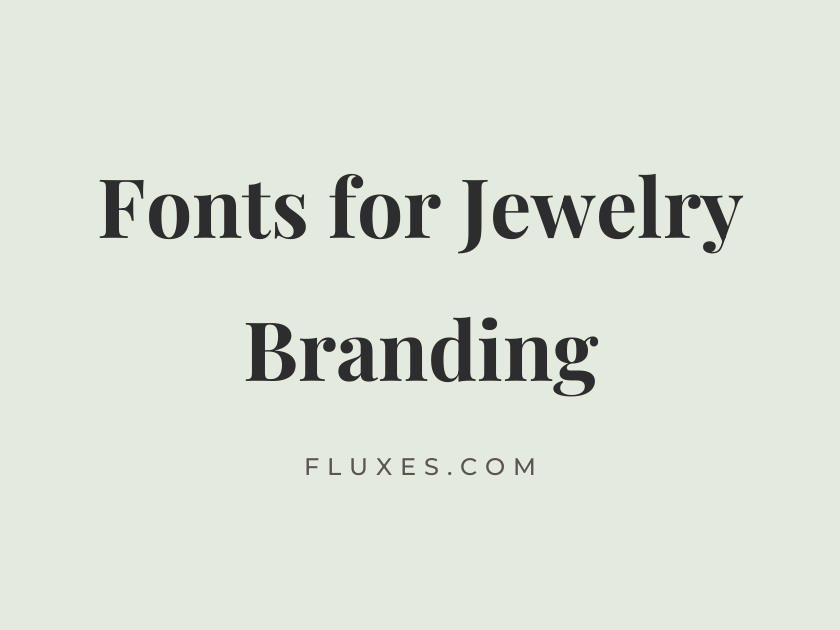
59 Best Fonts for Jewelry Branding
Jewelry branding lives in the details: the weight of a stroke, the space between letters, the way a serif catches light like a facet. Because the product itself is often small, precious, and photographed up close, the typography around it has to carry an outsized share of the storytelling, whether that means the hushed glamour of a hand-forged wedding band or the crisp confidence of a minimalist studio selling stacking rings online. The good news for designers on a budget is that some of the most convincing luxury type available today costs nothing at all.
Every font recommended here is free on Google Fonts, which makes this list a practical starting point whether you are building a logo, a packaging suite, or a full jewelry brand identity from scratch. You will find engraved-looking serifs, art deco display faces, romantic calligraphic scripts, and the kind of pared-back sans-serifs that modern fine jewelry labels favor for their restraint.
1. Playfair Display
Timeless brilliance, cut and set by hand
High contrast between thick and thin strokes gives Playfair Display the glint of a well-cut stone; it photographs beautifully on a hangtag or a storefront sign. It has become something of a default choice for luxury branding generally, so if you want your jewelry mark to stand apart, use it for a headline and let a quieter sans carry the supporting copy.
The italic is particularly good for necklace or ring names, adding a cursive flourish without tipping into full script territory.
2. Cormorant Garamond
Delicate settings for delicate stones
Thin, jewelry-fine strokes make this a natural fit for anything designed to feel precious rather than loud. It reads best set large, at display sizes, where its fragility becomes an asset instead of a legibility problem.
3. Cormorant
Heirloom pieces made for generations
The more decorative cousin of Cormorant Garamond, this family leans into old-style ornament and calligraphic detailing. It suits heritage jewelers and antique dealers who want their typography to feel inherited rather than manufactured.
4. EB Garamond
Classic craftsmanship since the workshop began
Rooted in Claude Garamont’s Renaissance letterforms, this face carries an old-world authority that suits jewelers who trade on heritage and hand craftsmanship. It works equally well in a logotype and in long-form copy about sourcing and provenance.
5. Libre Caslon Text
Certified diamonds, ethically sourced and graded
Built specifically for text rather than display, this is the one to reach for when your jewelry site needs paragraphs of care instructions or appraisal detail that still feel refined rather than generic.
6. Marcellus
Refined lines for the modern collector
Marcellus keeps its capitals tall, narrow, and quiet, which makes it a dependable choice for a wordmark that needs to sit above a minimalist product photograph without competing for attention.
7. Marcellus SC
ENGRAVED IN EVERY DETAIL
The small-caps version of Marcellus is tailor-made for monogram-style logos and hallmark-inspired lockups, where evenly weighted capitals suggest precision stamping rather than handwriting.
8. Cinzel
Inspired by classical Roman inscriptions
Cinzel draws directly from carved Roman capitals, and that lineage shows: the letterforms feel chiseled rather than drawn, which is exactly the association a fine jewelry or engraving brand wants. It suits signet rings, medallions, and any piece that leans on heritage and permanence as selling points.
Because it has no lowercase warmth to soften it, use it sparingly, for a logo or a short headline, and let a plainer serif or sans handle body text.
9. Cinzel Decorative
Ornamental flourishes for statement pieces
This is Cinzel with its guard down: swashes, curls, and decorative terminals that suit a bold statement necklace or a maximalist jewelry box design far better than a subtle stud earring.
10. Italiana
Understated luxury, one thin line at a time
Italiana is a single, whisper-thin weight, and it wears that limitation well. It has the hushed elegance of an Italian fashion house nameplate, though its hairlines can disappear at small sizes, so keep it for headers and logotypes rather than fine print.
11. Prata
Warmth and polish in every setting
Slightly softer and warmer than most display serifs on this list, Prata suits boutique jewelers who want elegance without the coldness that high-contrast Didones can bring.
12. Bodoni Moda
High fashion, cast in gold and platinum
Sharp, vertical stress and dramatic thick-thin contrast give Bodoni Moda the look of a glossy fashion magazine masthead, which makes it a strong pick for a jewelry brand chasing an editorial, high-fashion identity.
It is a genuinely useful free alternative to paid Didone classics, but it does get muddy at small sizes on screen, so reserve it for headlines and hero imagery rather than product descriptions.
Test any display serif or script at the actual sizes it will appear, especially on packaging, hangtags, or mobile screens. Many high-contrast and calligraphic fonts look stunning large and turn illegible small.
If your jewelry line spans multiple aesthetics, from bridal to everyday, consider building two or three approved font pairings rather than forcing one typeface to do everything.
Whatever direction you choose, downloading and testing directly on your own product photography is the only real way to know if a font earns its place in the collection.